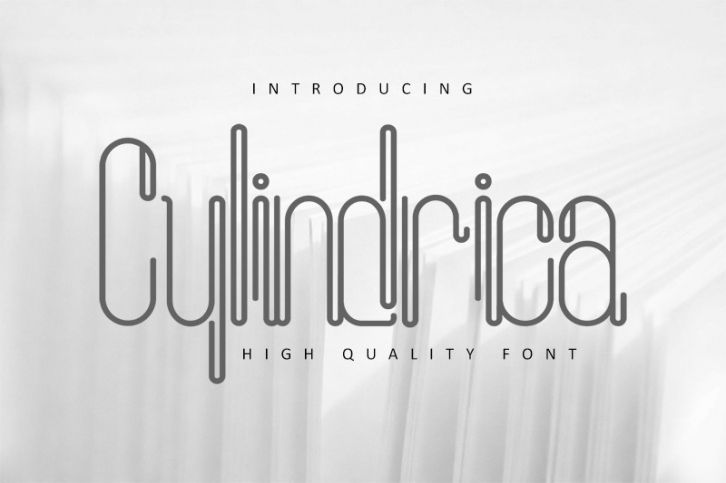
Cylindrica Font Download
Introducing Cylindrica Font! a new sans serif. Cylindrica Font is a modern, futuristic, minimal and clean. With upper & lower case characters, numbers, and punctuation. This font makes way for the creativity of each and every one. Cylindrica Font is great for creating eye-catching headlines, logo, applicable for any type of graphic design web, print, motion graphics, perfect for poster/flyer, branding, packaging, pictograms, etc.